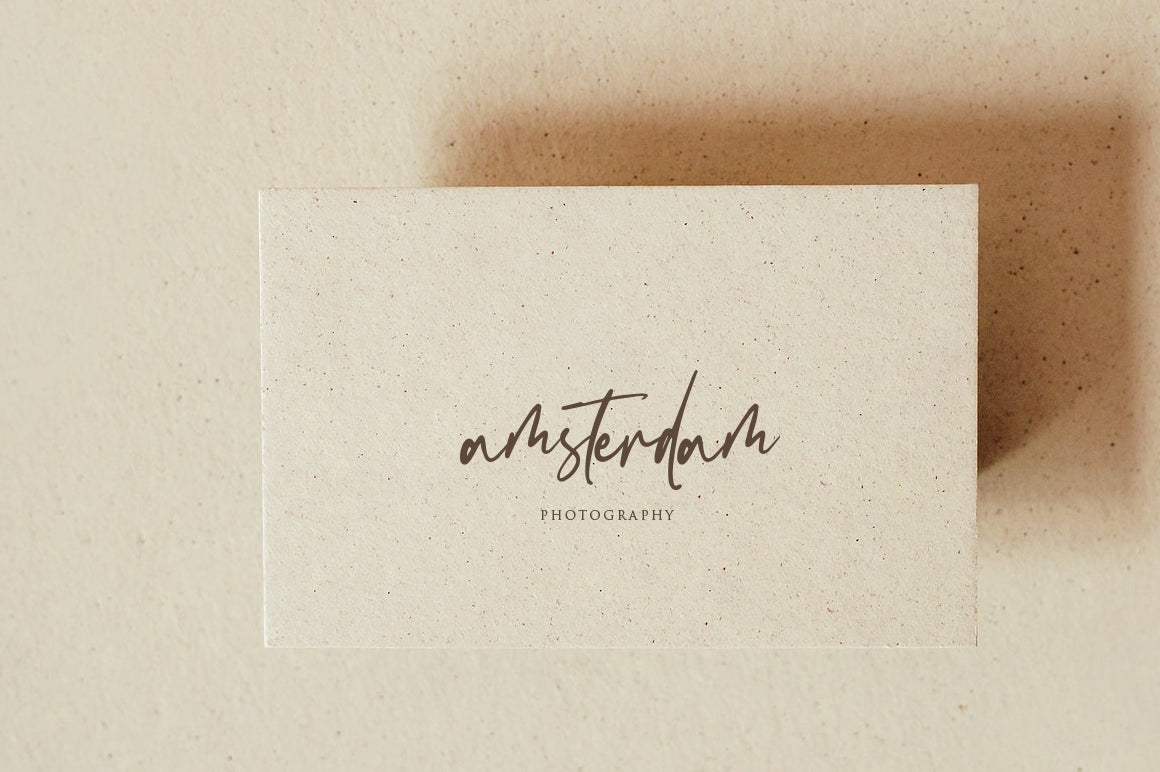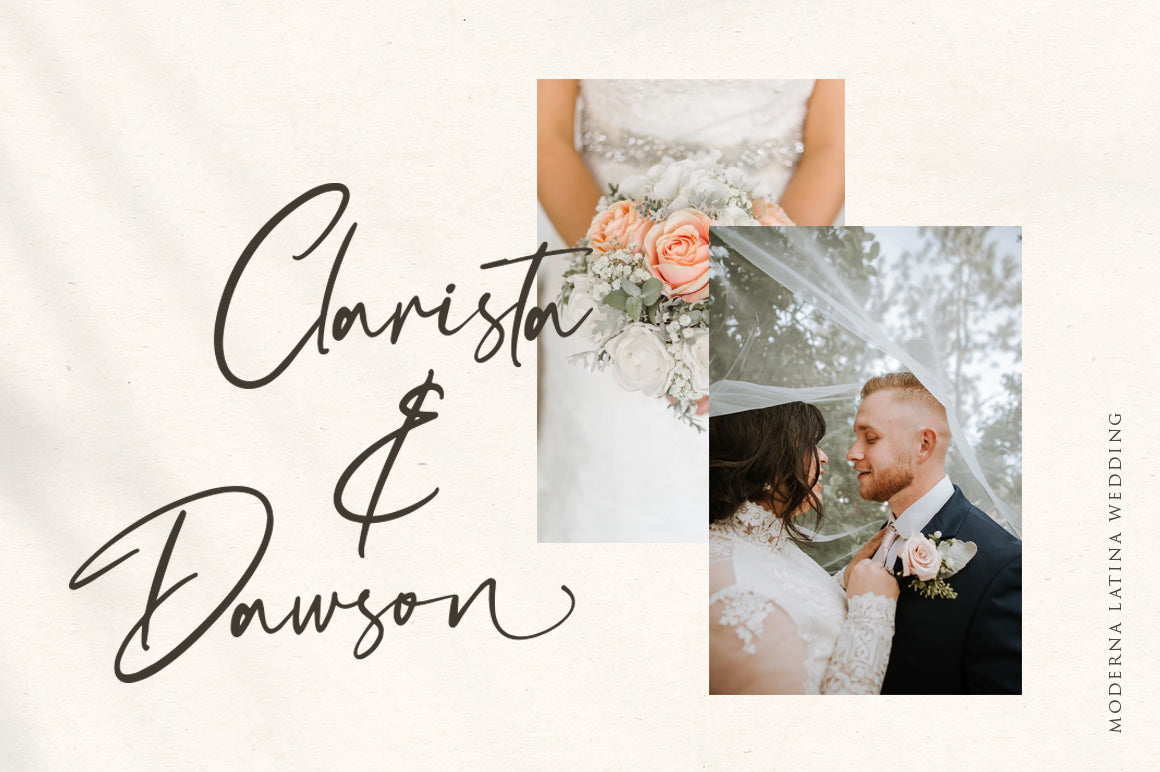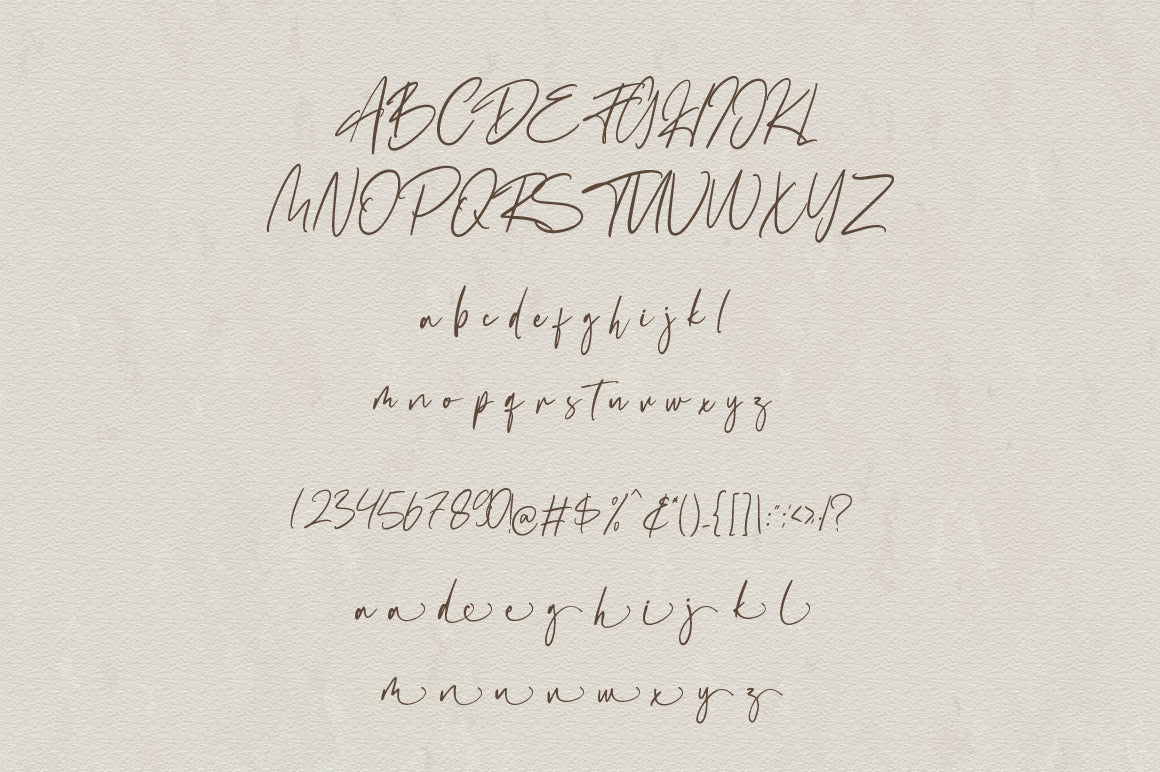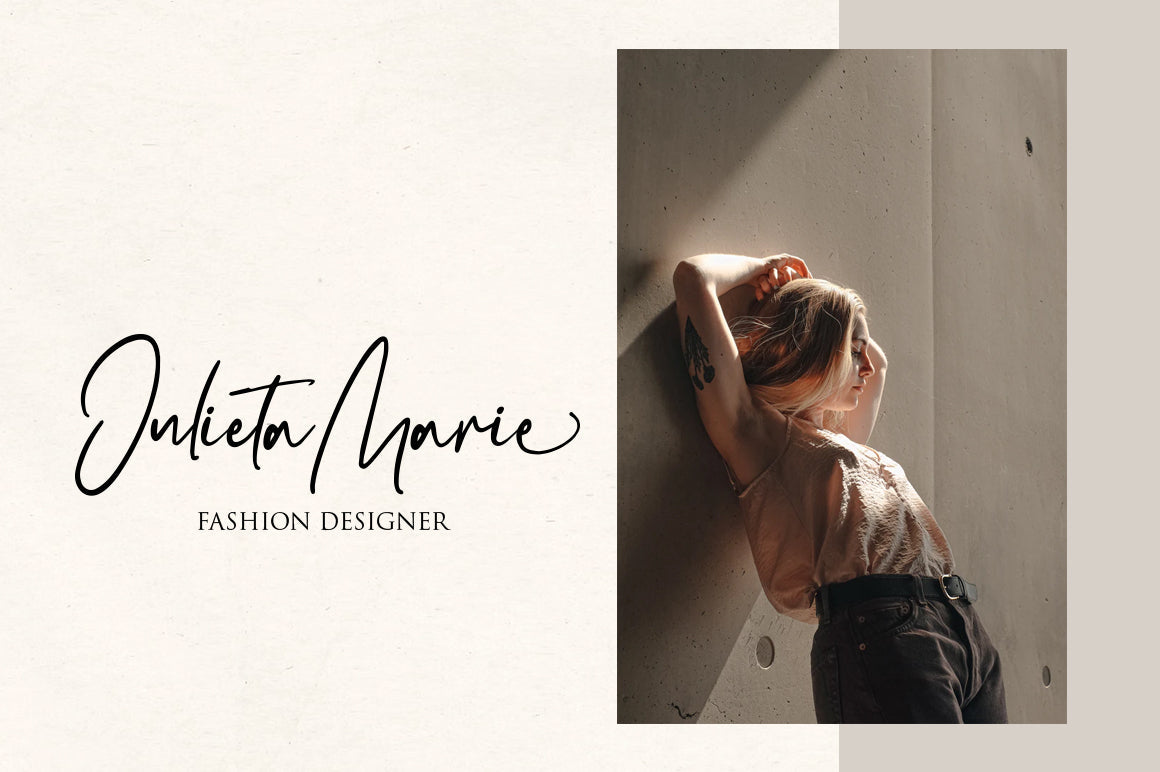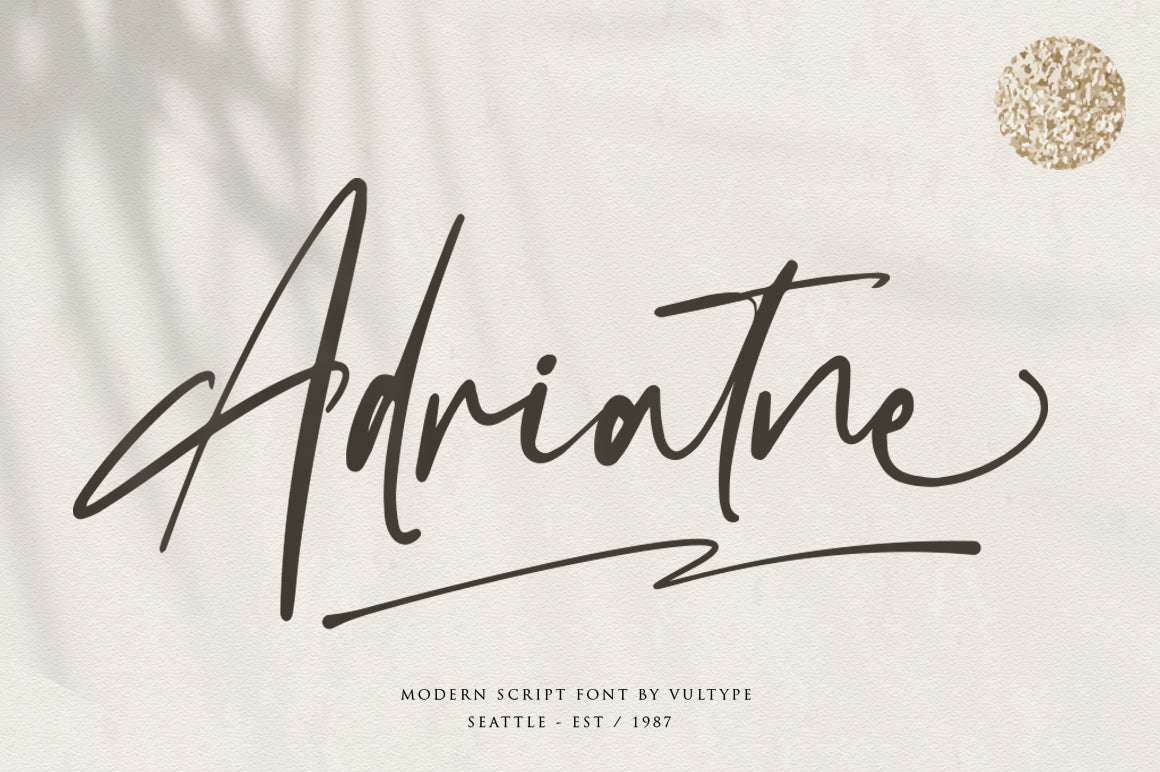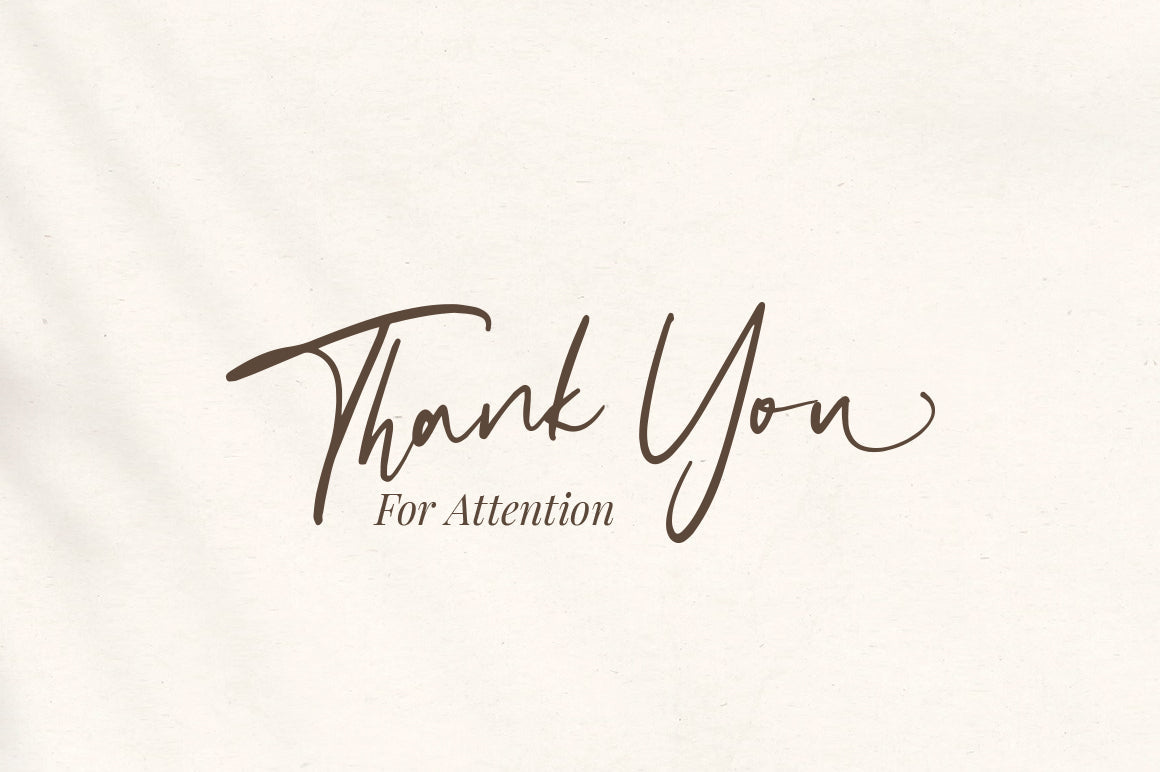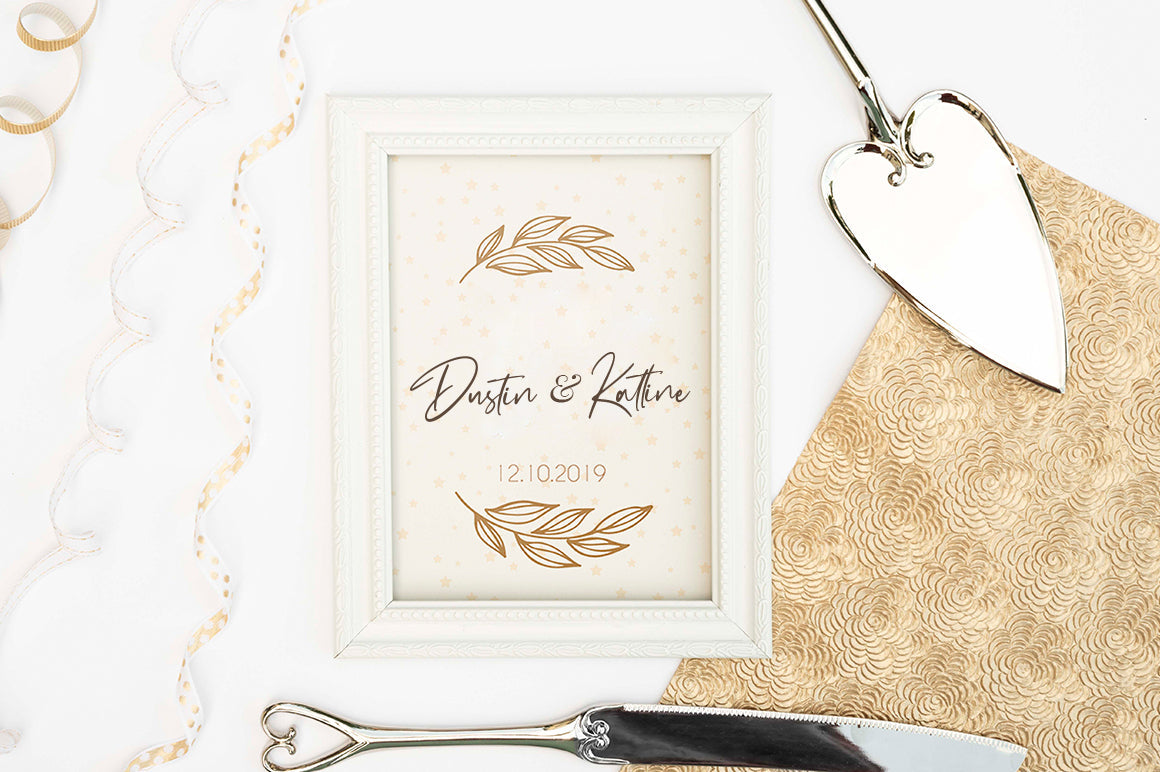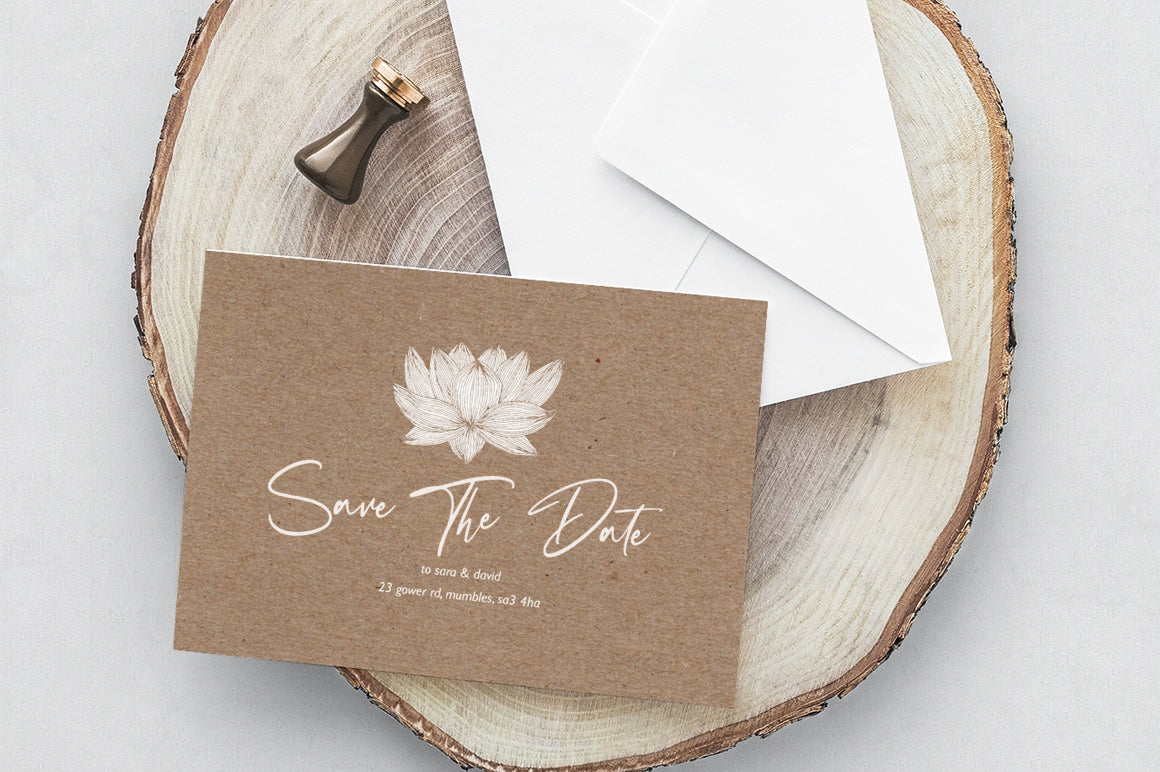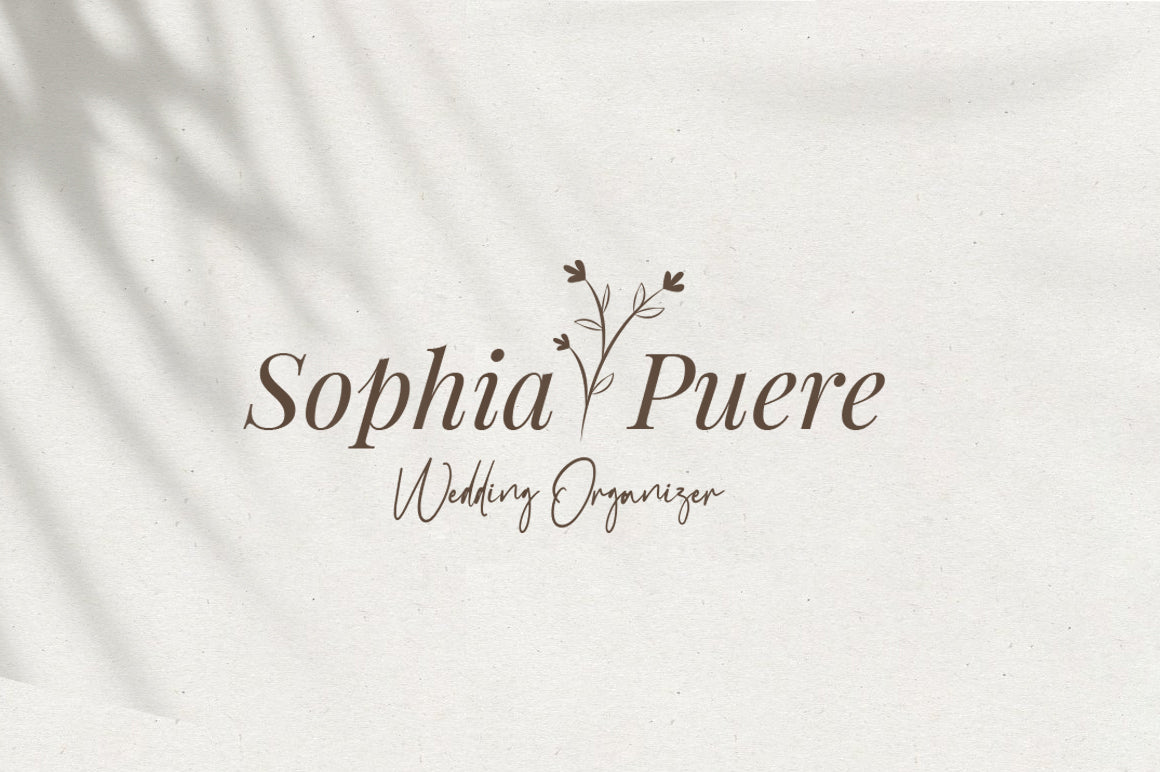
Adriatne Brush Font
About Adriatne Brush Font
Adriatne Brush Font feels equally charming and elegant. It looks stunning on wedding invitations, thank you cards, quotes, greeting cards, logos, business cards and every other design which needs a handwritten touch. This font is PUA encoded which means you can access all of the glyphs and swashes with ease! It features a varying baseline, smooth lines, gorgeous glyphs and stunning alternates. you WIll Get : Zip file containing: either a OTF and TTF files Font Features : Web font file (.WOFF) Uppercase + Lowercase Letters Numbers + Punctuation Ligature Feature OpenType features Multilingual support Compatible with Adobe Illustrator, Adobe Photoshop, Adobe Indesign, Word, Corel draw, inkscape Silhouette Studio, Cricut Design Space, Scan N Cut, and other cutting and design programs Any questions? feel free to send us a message. Have a great day !